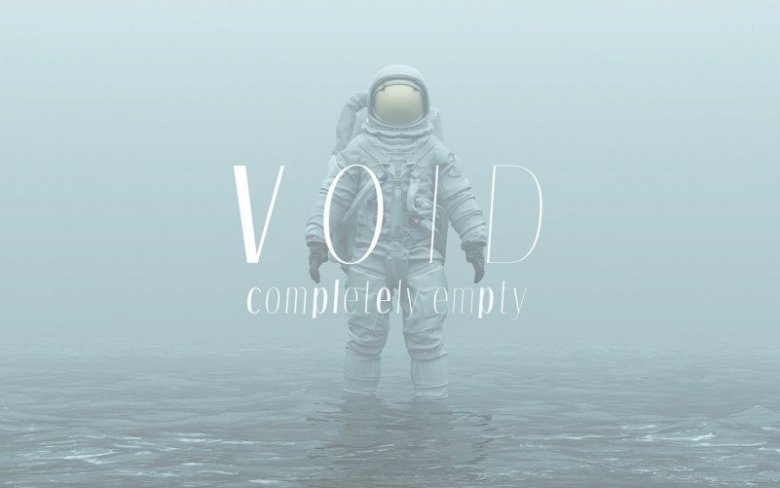
VOID Sans Serif Font
VOID Sans Serif Font is a modern sans serif font. Made for any professional project branding. It is perfect for printing, branding and quotes. Every letter has a unique and beautiful touch. It’s designed and shared by sartstudio.  Can also be applied to the design of a logotype, header website, wedding logo, romantic design, makes some lettering a quote, T-shirt design etc.